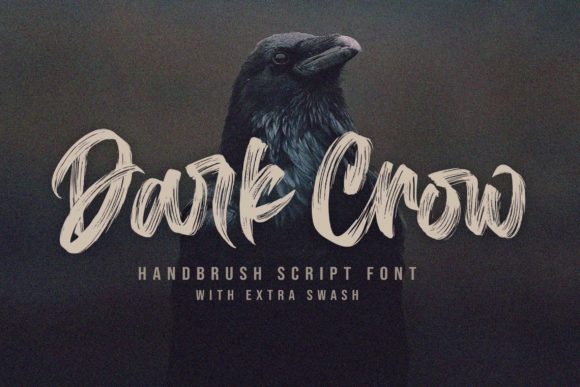
Dive into the depths of elegance and fluidity with Dark Crow, a captivating script font born from the strokes of a remarkable brush pen. Its enchanting design spells magic on your designs, adding a touch of sophistication that will leave you mesmerized.
With Dark Crow, your creations will dance with a graceful rhythm, telling stories through every letter. Its flowing curves and delicate swashes evoke a sense of timeless beauty, making it the perfect choice for designs that demand attention.
Picture your designs adorned with Dark Crow's enchanting allure. Logos, branding, invitations, and social media posts will radiate with an air of distinction, leaving a lasting impression on your audience. Let Dark Crow be your secret weapon to captivate hearts and ignite imaginations.
Unleash your creativity and embark on a journey of artistic expression with Dark Crow. Its versatile style effortlessly adapts to a myriad of design genres, from vintage to modern, playful to serious. Let your imagination soar as you explore its endless possibilities.
Indulge in the artistry of Dark Crow and witness the transformation of your designs. Its exquisite details and effortless flow will elevate your projects to new heights, leaving your audience spellbound. Embrace the power of Dark Crow and unlock a world of design magic.